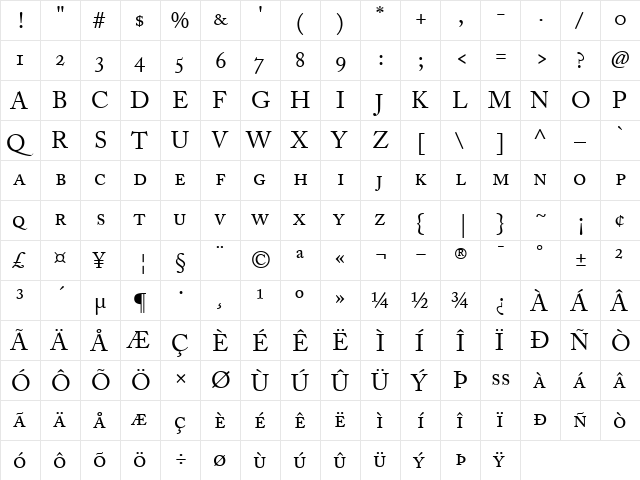
tsp machina 1 caps Normal
Design Context for tsp machina 1 caps Typeface
tsp machina 1 caps offers clean, dependable letterforms without strong stylistic allegiance, making it a practical choice for designers who need flexibility.